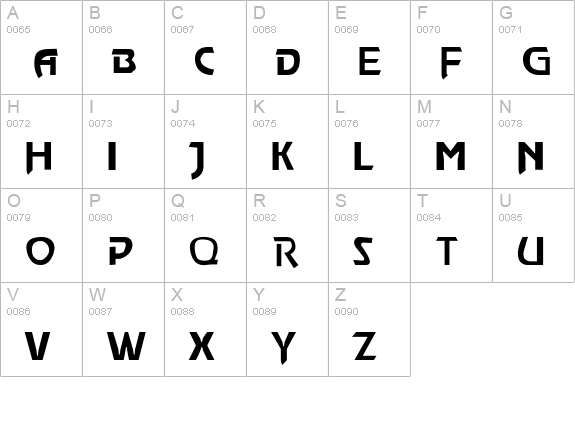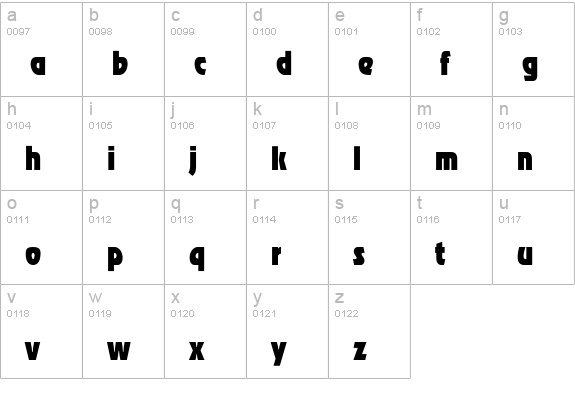
StormLight Font Details
StormLight font is a visually striking typeface that combines modern elegance with a touch of dramatic flair. Its sleek and sophisticated design makes it perfect for adding a bold statement to any project, whether it's for branding, advertising, or creative design work. The sharp, angular lines of StormLight exude a sense of power and strength, while still maintaining a sense of refinement and finesse. What sets StormLight apart is that it is not only a stunning font, but it is also available for free download at FontsMarket.com. This means that you can easily access this high-quality typeface without any cost, making it a valuable resource for designers and creators looking to elevate their work without breaking the bank. With StormLight font, you can unleash your creativity and bring your ideas to life with a touch of modern sophistication.